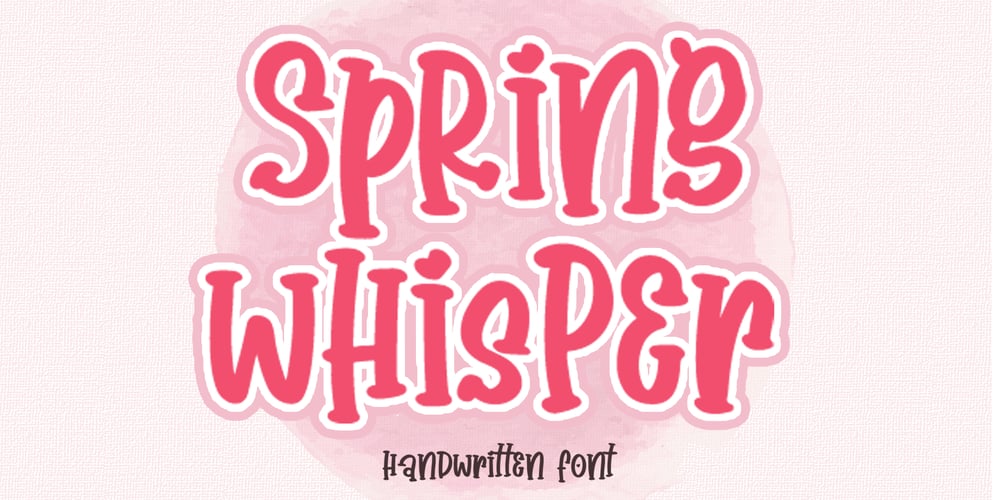
Spring Whisper Font Family was designed by Dimas Prasetyo and published by DM Studio. Spring Whisper contains 1 styles and family package options. Spring Whisper Handwritten Font is a delicate and elegant typeface that captures the gentle and refreshing essence of spring. With its flowing and graceful letterforms, this font is perfect for wedding invitations, greeting cards, branding, and any project that requires a touch of sophistication and natural beauty.Features: Delicate and Elegant Design: The Spring Whisper Font features flowing and graceful letterforms that evoke the gentle and refreshing essence of spring. Versatile Application: Ideal for wedding invitations, greeting cards, branding, and more, adding a touch of sophistication and natural beauty to your designs. Uppercase and Lowercase Letters: Provides flexibility and creative freedom in your designs. Punctuation and Symbols: Comprehensive set for versatile and consistent use. Easy Installation and Use: Compatible with both Windows and Mac operating systems, seamlessly integrating into popular design software like Adobe Photoshop, Illustrator, and InDesign.